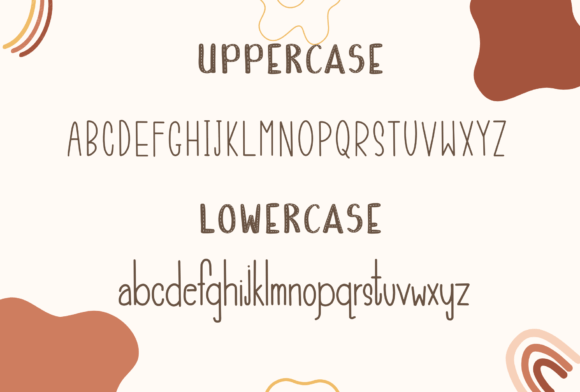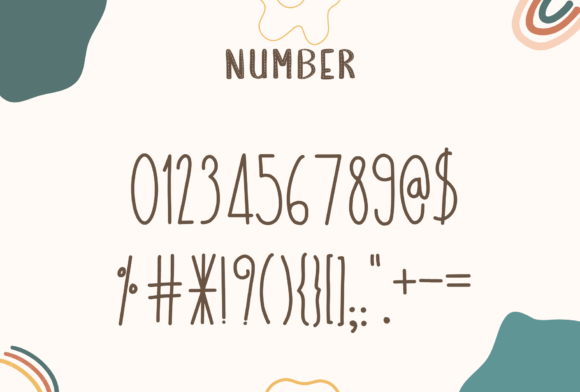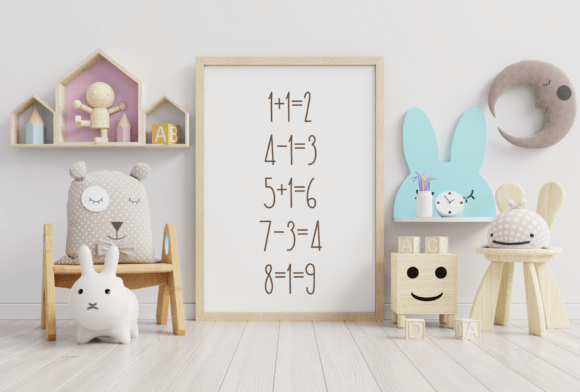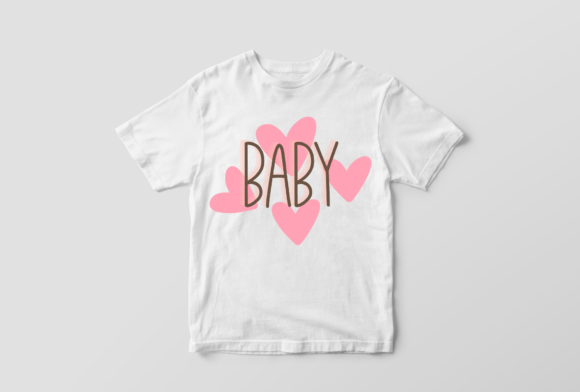
Introduction to Salomon Typograph Font Font
Fonts play a crucial role in design, and the Salomon Typograph Font font is a typeface that brings both character and versatility to any project. Whether you’re working on a branding project, a website, or a print design, the Salomon Typograph Font font offers a unique style that can elevate your work.
Salomon Typograph is a super cute handwriting front with a simple style, suitable for teaching.
Use it to decorate presentations, education projects, illustrations, or anything else .
Key Features of Salomon Typograph Font Font
Why Choose Salomon Typograph Font Font?
The Salomon Typograph Font font is more than just a typeface – it’s a design tool that helps you communicate your message with style and clarity. Its unique character set and versatile design make it suitable for a wide range of applications, from elegant invitations to bold headlines.
With its carefully crafted letterforms and balanced proportions, the Salomon Typograph Font font ensures readability and visual appeal across all mediums.
What makes Salomon Typograph Font font special?
The Salomon Typograph Font font stands out with its unique design, exceptional readability, and versatility across various design applications.